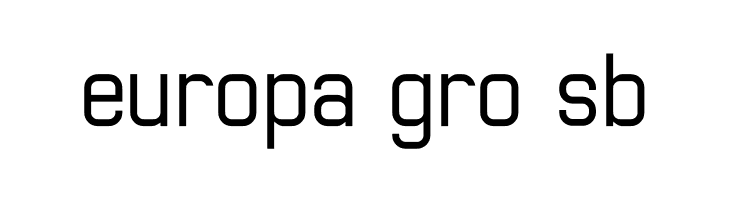
A playful, modern font with rounded, elongated letterforms and consistent stroke widths.
A bold, outlined collegiate font with a geometric structure and strong visual impact.
A bold, geometric font with a modern and robust style.
A bold, playful font with organic curves and a retro-modern vibe.
A bold, playful font with organic, fluid shapes and high contrast.
A bold, decorative font with playful, rounded shapes and whimsical curves.
A bold, playful font with a bubbly, cartoonish style and high contrast strokes.
A modern, geometric font with a clean and uniform appearance.
A bold, 3D hollow font with a modern, geometric style.
A bold, playful font with a bubbly, three-dimensional appearance.
A modern, flowing cursive font with bold, expressive characters.
A dynamic and elegant script font with fluid, connected letterforms.
A historical, calligraphic font with an elegant, hand-drawn style.
A bold, shadowed font with a vintage yet modern appeal, perfect for headlines.
A modern serif font with decorative elements and clean lines.
A modern serif font with elegant curves and a classic touch.
A bold, rounded serif font with a playful yet structured style.
A bold, vintage-style font with rounded and angular elements, perfect for impactful designs.
A bold slab serif font with thick strokes and rounded edges.
A bold, vintage-inspired serif font with rounded edges and a compact style.
A bold, shadowed font with a three-dimensional effect, perfect for standout designs.
A bold, shadowed font with a strong, three-dimensional appearance.
A bold, high-contrast font with dramatic, theatrical flair.
A bold, 3D block-style font with geometric shapes and strong visual impact.
A bold, three-dimensional block font with a strong shadow effect and geometric design.
A bold, three-dimensional block font with a strong shadow effect.
A bold, 3D block font with strong shadow effects for impactful designs.
A bold, 3D block-style font with strong shadow effects.
A bold, three-dimensional block font with a strong shadow effect and geometric design.
A sleek, thin, and oblique font with a modern and elegant style.